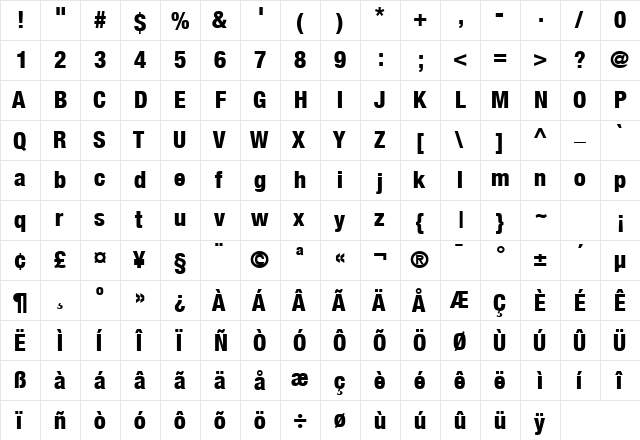
HeaveneticaCond8 HvySH
Design Context for HeaveneticaCond8 Typeface
HeaveneticaCond8 is a composed and adaptable typeface that performs quietly and consistently across a wide range of design contexts. The condensed width makes it efficient for tight spaces without sacrificing legibility.